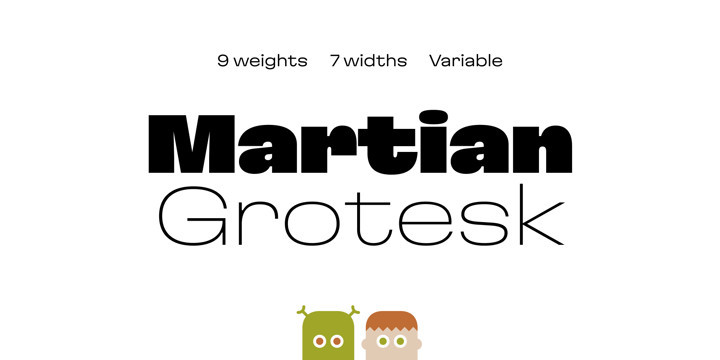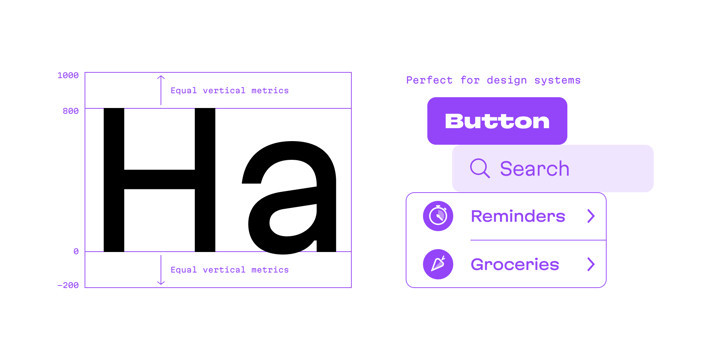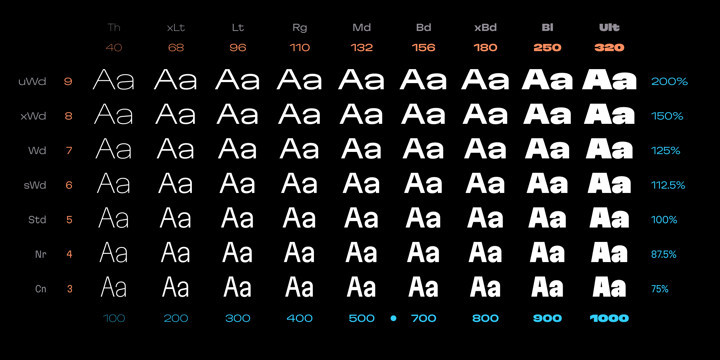
Martian Grotesk Font Family
Martian Grotesk Font FamilyMartian Grotesk is a large typeface family originally designed for the screen which consists of a variable font with 2 axes of variation and 63 styles: Condensed to Ultra Wide, Thin to Ultra Black.
Aesthetics
The font style is characterized by some brutality and assertiveness. Overhanging terminals, a closed aperture, and an almost complete lack of contrast lead to this effect. Additionally, some elements of the letters are especially enlarged.
This font gives any text the impression of being a “signature” style. Nevertheless, we still maintain the golden mean between its rebellious nature and readability.
Perfect for web development
We created Martian Grotesk for the web and digital project world. When laying out web pages, frontend developers are constantly faced with the fact that uneven metrics do not allow text to be evenly placed on some design element, for example, on a button. Instead, they have to compensate in some way, like making the top padding smaller and the bottom padding larger in CSS.
This little deal really hurts. Also, if your project adheres to design system principles, you might be unable to stand a lack of systematic approach when working with fonts.
We researched and calculated vertical metrics and set them up in a way that guarantees equal space above the cap height and under the baseline. This enables the text labels to be evenly placed on buttons, inputs, lists, and forms.
In addition, we found a proper ratio of the letter heights, so, with commonly used font sizes—10, 15, and 20 pixels—the glyph heights stick to the pixel grid. As a result, the letter shapes become sharper, which reduces the load on the reader’s eyes and simply looks much better. The typeface also comes equipped with OpenType and TrueType hinting, and Martian Grotesk appears legible on most platforms, even when being rendered in small sizes.
When coupled together, all the above features make Martian Grotesk a reasonable choice for any user interface design.